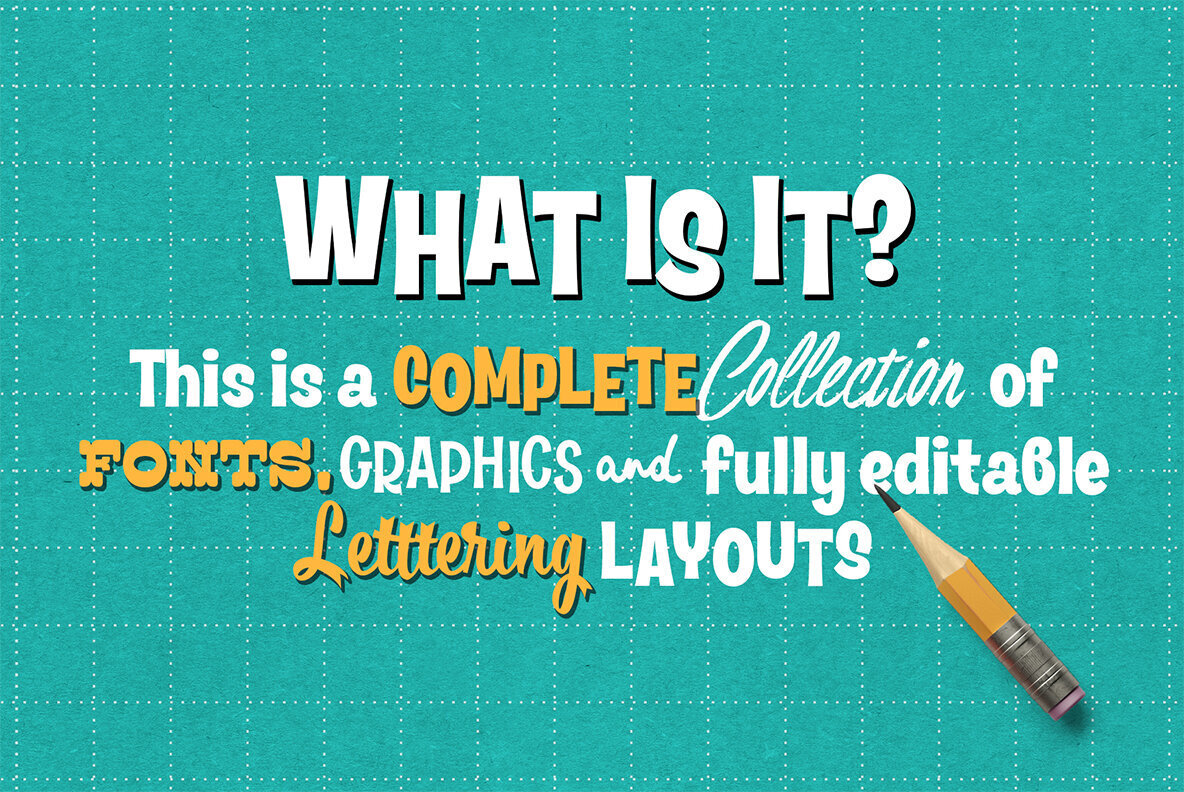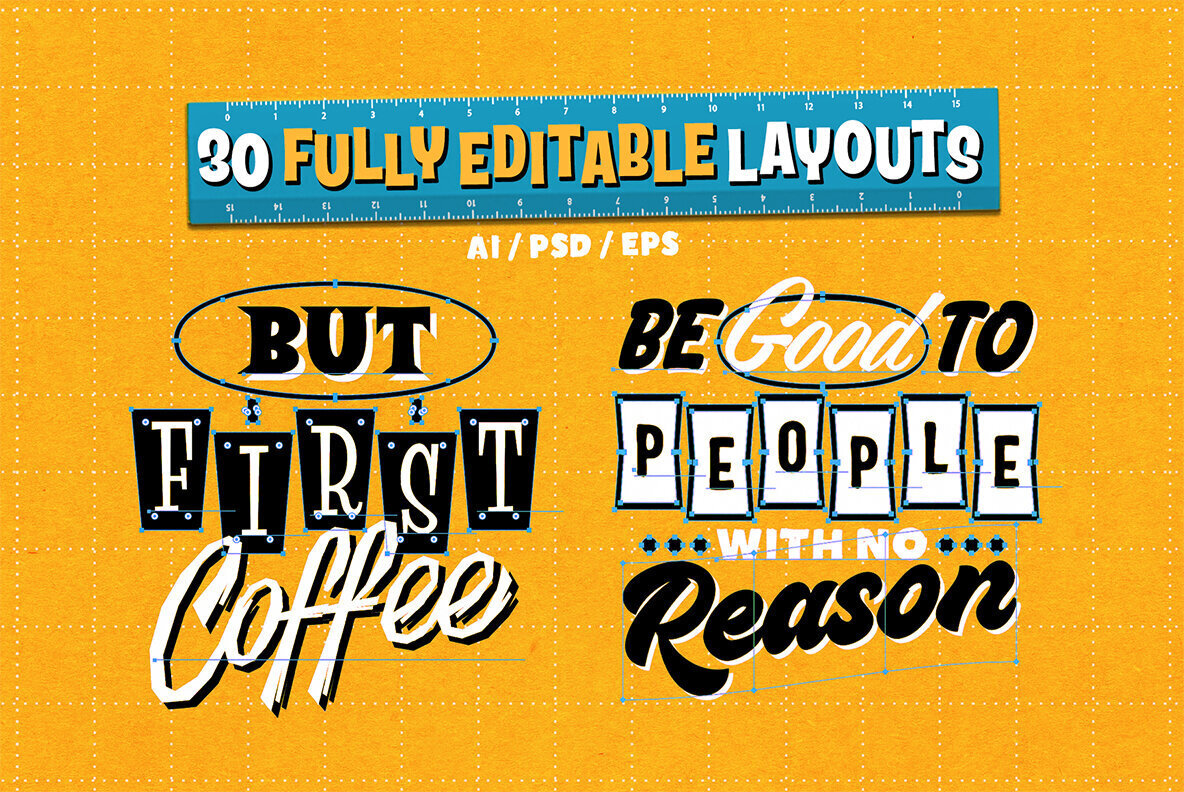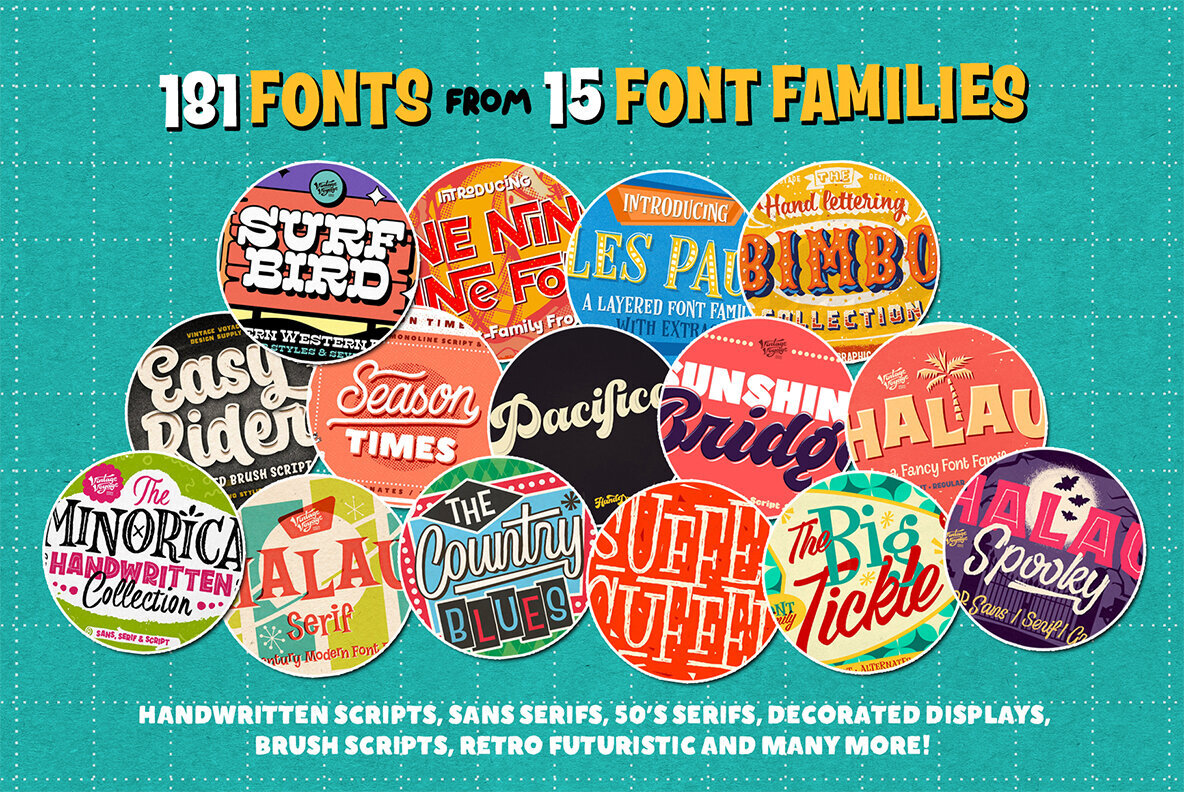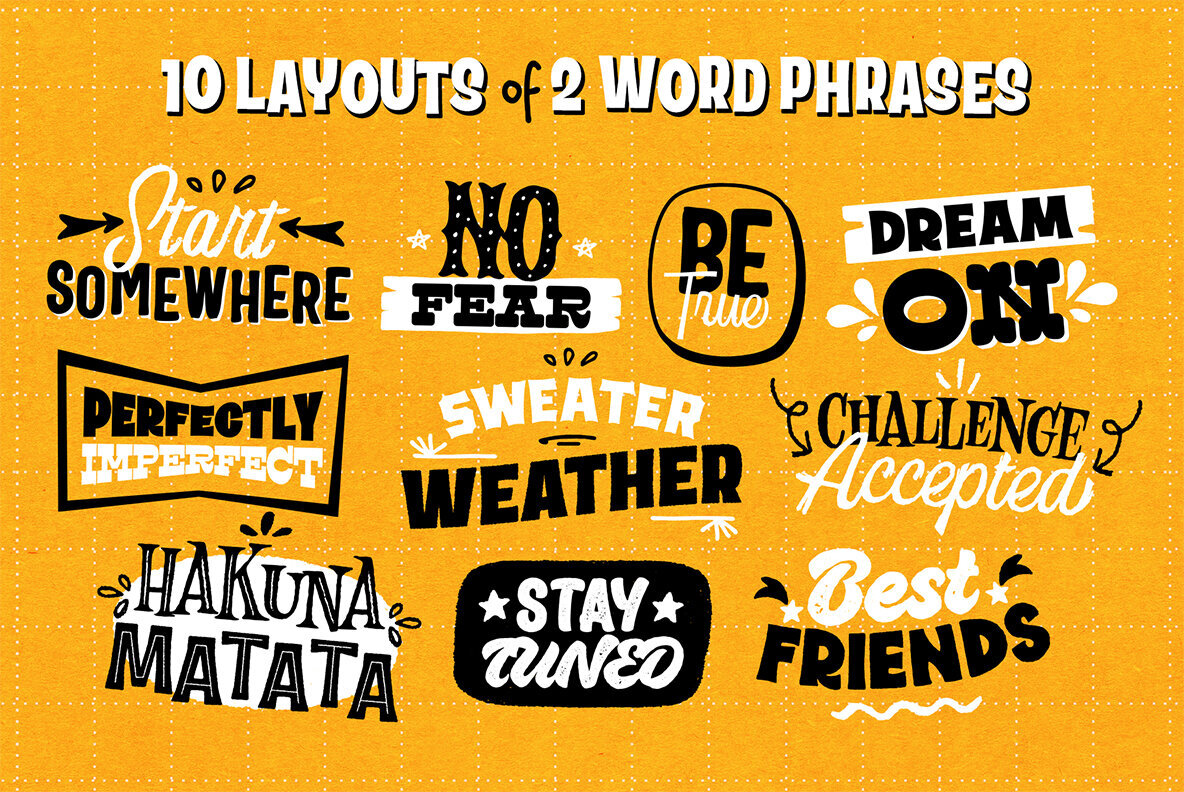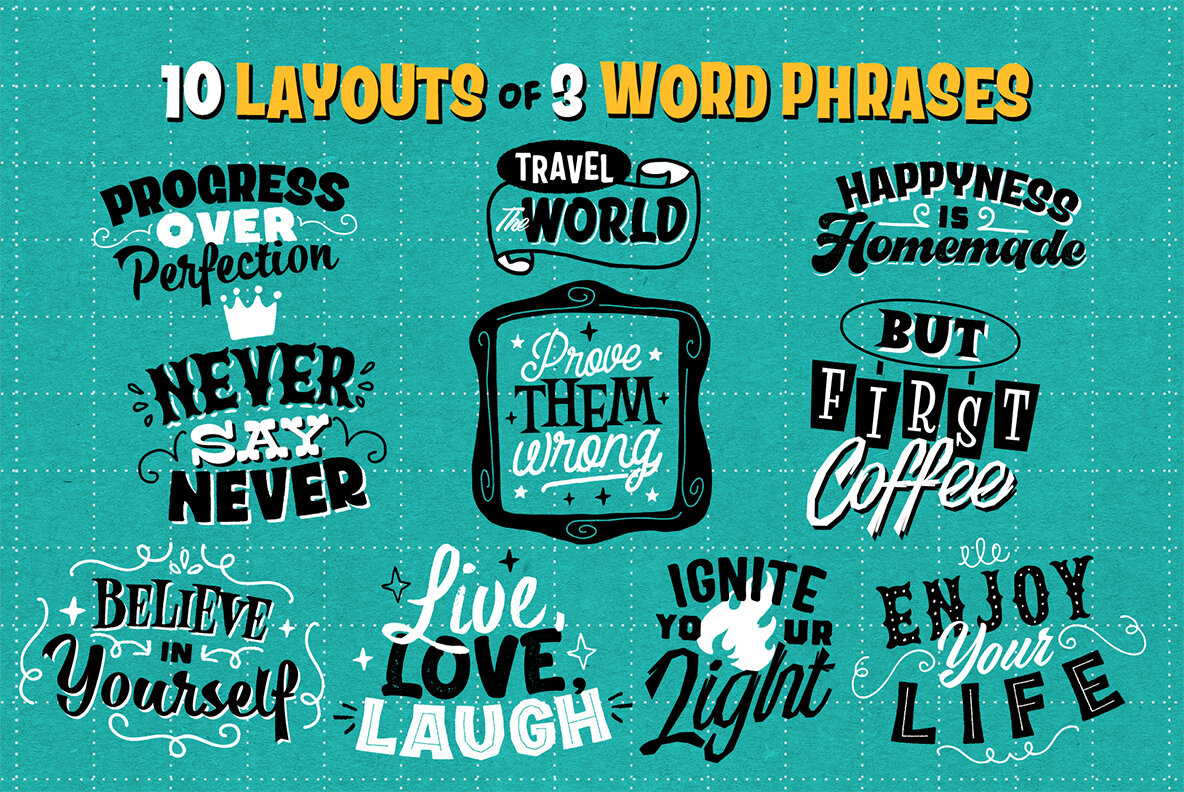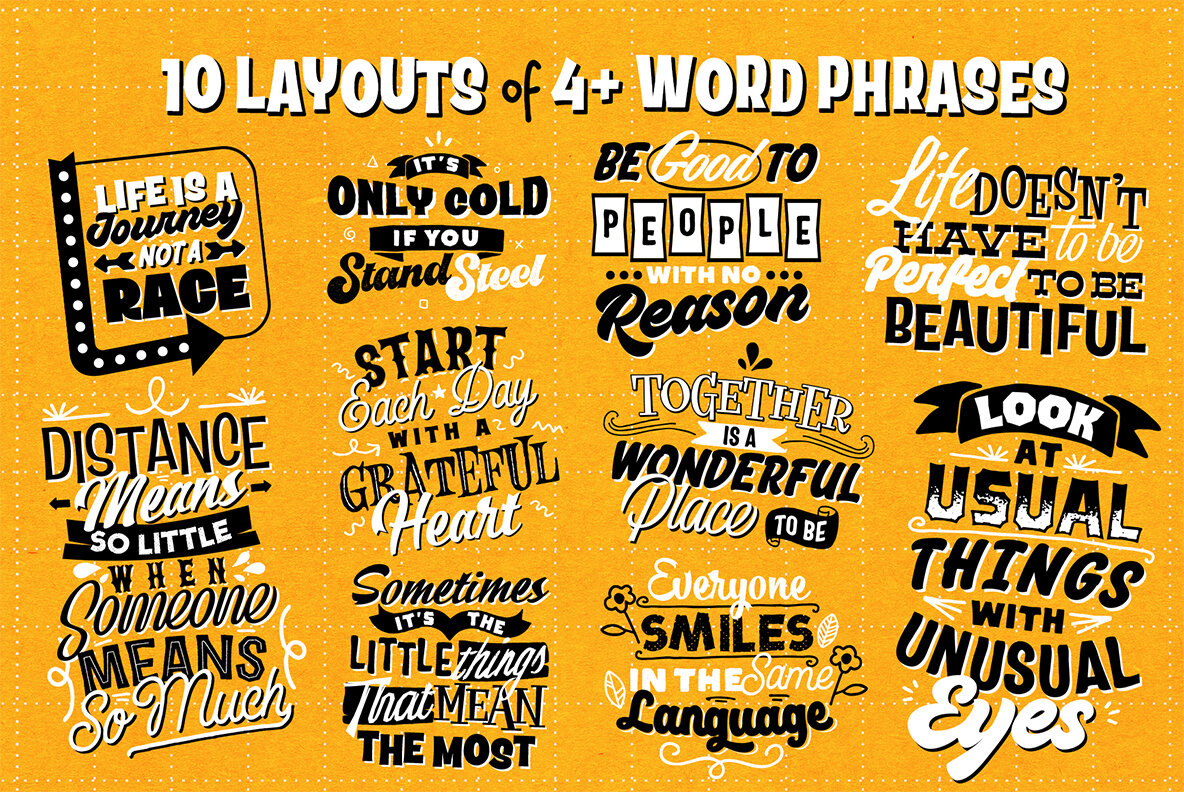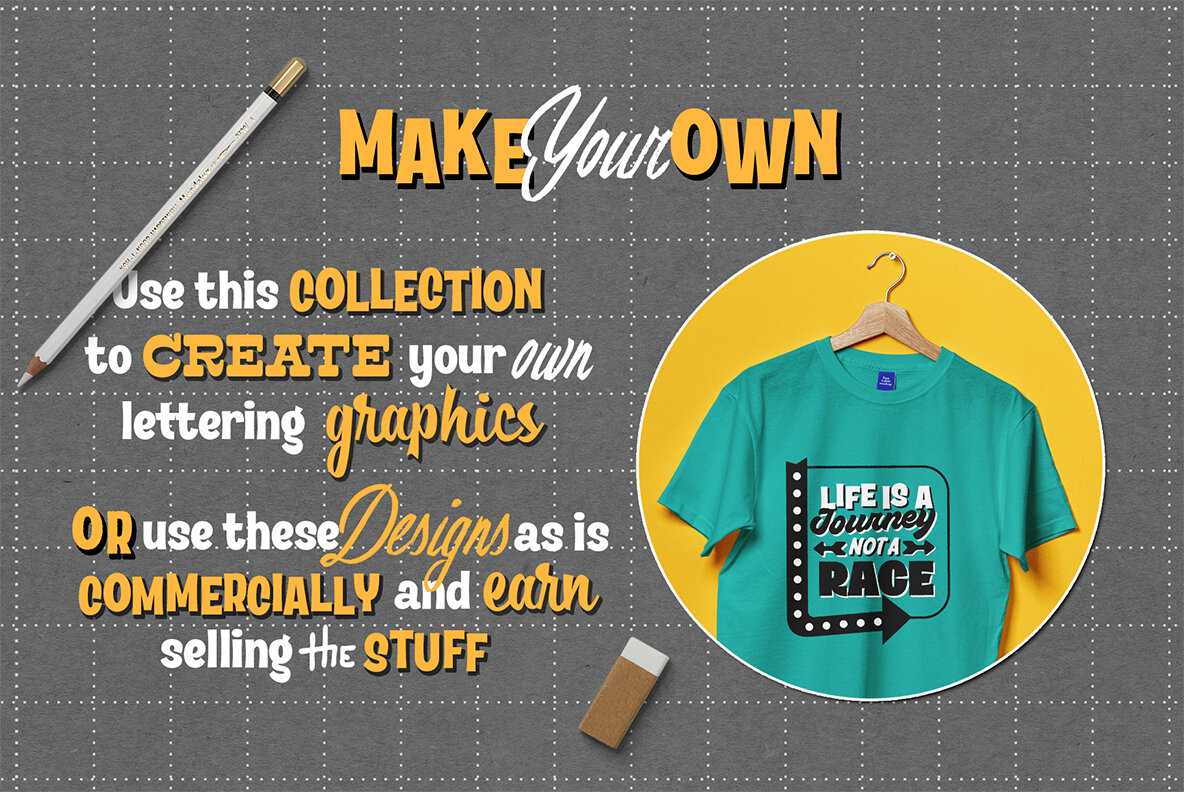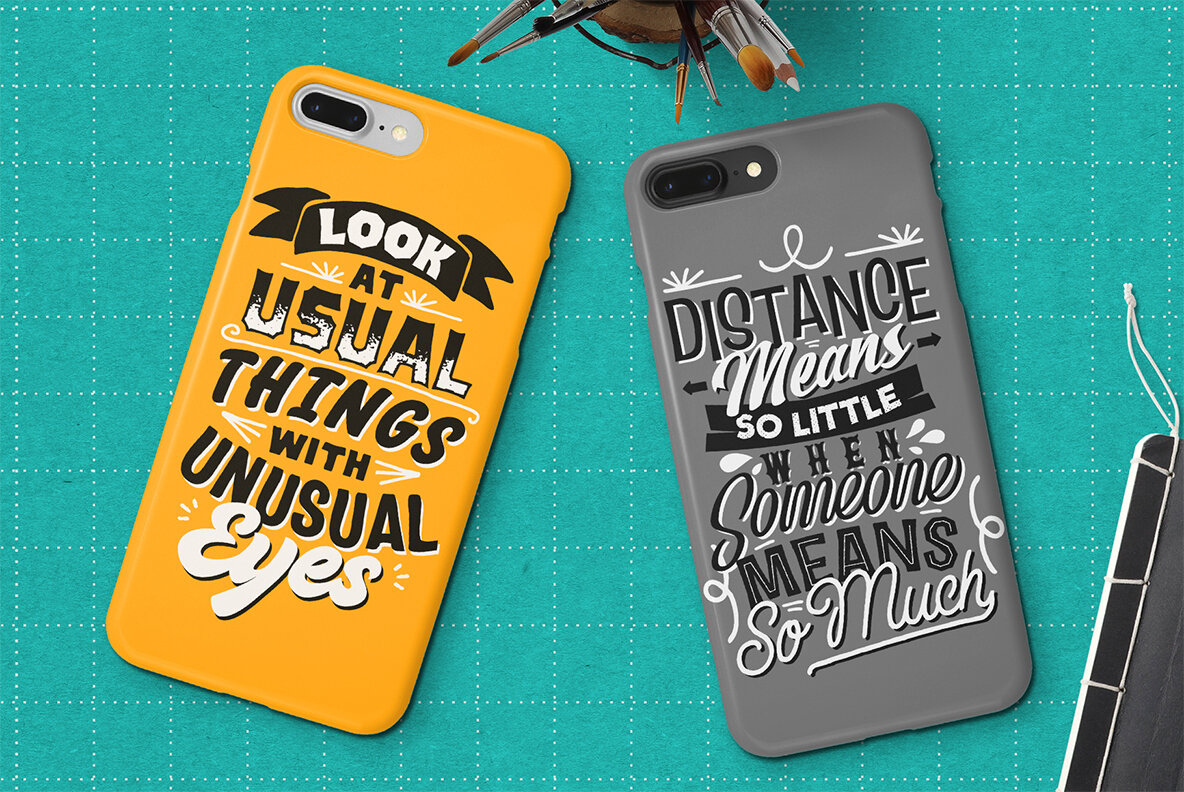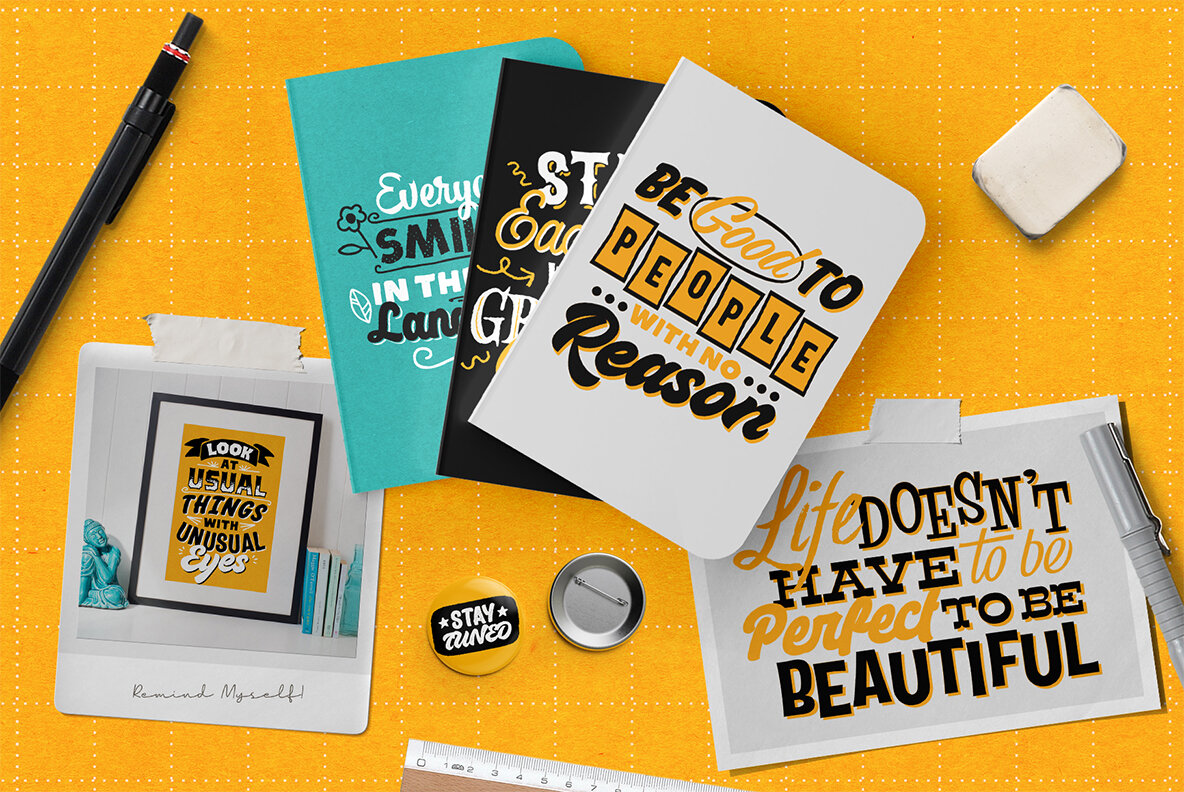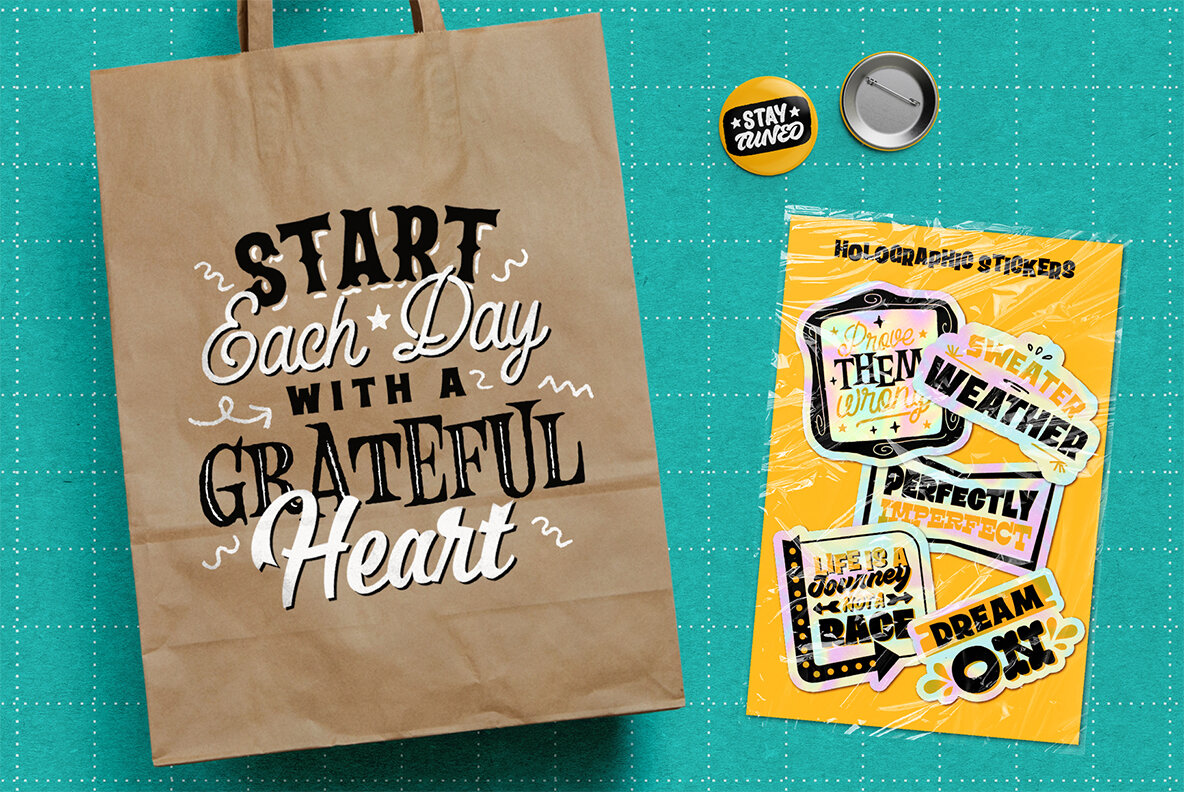
VVDS Custom Lettering Collection 1
Nostalgia is a powerful force and it's no wonder that people love to use vintage aesthetics in their design projects. Vintage Voyage Design is an award-winning design studio that specializes in creating these exact beautiful, handcrafted retro and vintage style fonts and graphics that everyone can download and...